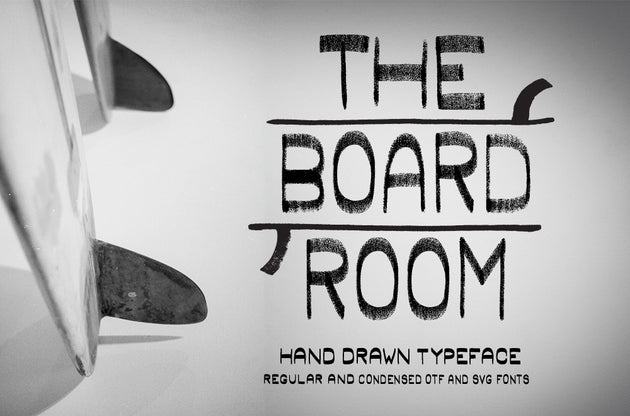
The Board Room Font
This font looks hand drawn because... it was hand drawn... outside of a computer.
The Board Room font is a hand painted marker typeface containing both Regular and Condense fonts as well as clean and rough versions of each. This OTF font with SVG options is a unique take on a hand lettered display font.
SVG Fonts, usable in Adobe Photoshop, enable the nuance and texture of a hand lettered type to translate to the font form. The rough versions of The Board Room font are a great example of how an SVG font can emulate hand drawn type. You can use adjustment layers to change the color of the font and adjust the font layer using "multiply" to achieve stunning, true to life, marker effects!
The clean versions of The Board Room font are vector OTF font that are infinitely scalable. They still possesses the nuance of a hand lettered font, while working just like any other font in your font library.